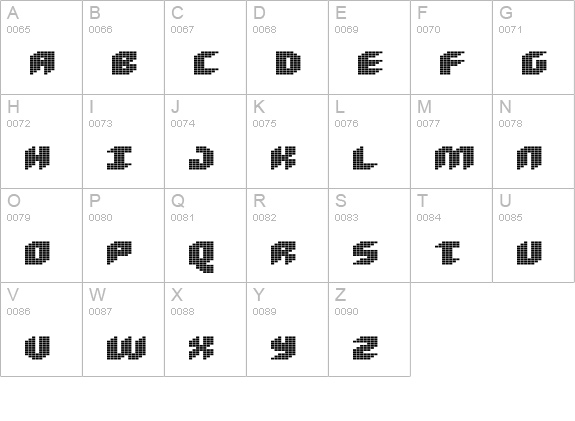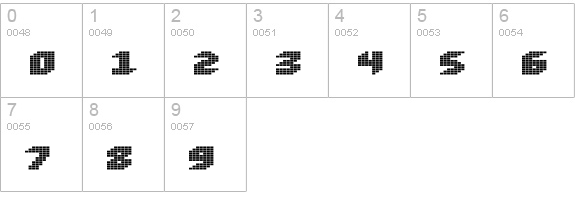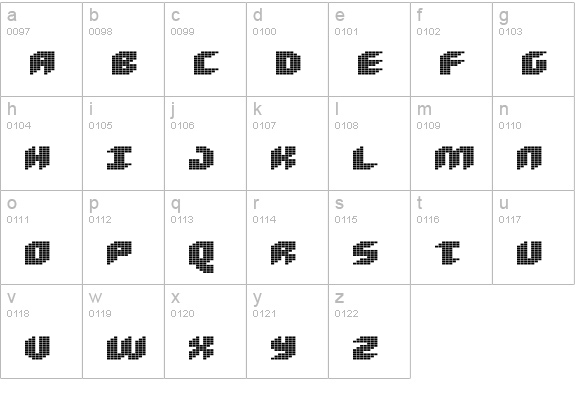
Loud noise Font Details
Introducing Loud Noise Font, a bold and eye-catching typeface that commands attention with its striking design. This font is perfect for making a statement and adding a touch of modernity to your projects. With its edgy and loud appearance, Loud Noise Font is sure to leave a lasting impression on your audience. What's even better is that Loud Noise Font is completely free to download at FontsMarket.com! This means you can easily access this unique font and use it in your creative endeavors without any cost. So why wait? Download Loud Noise Font now and add a powerful element to your designs.